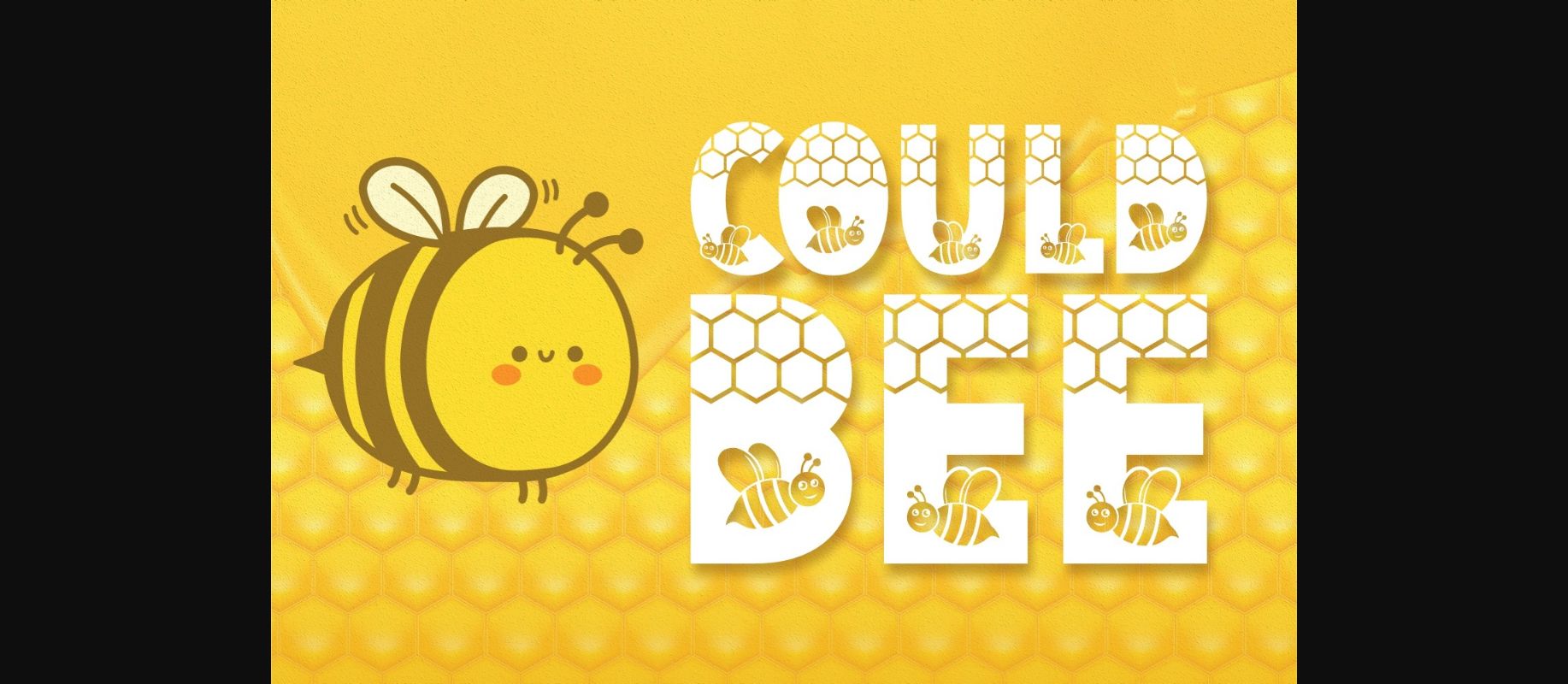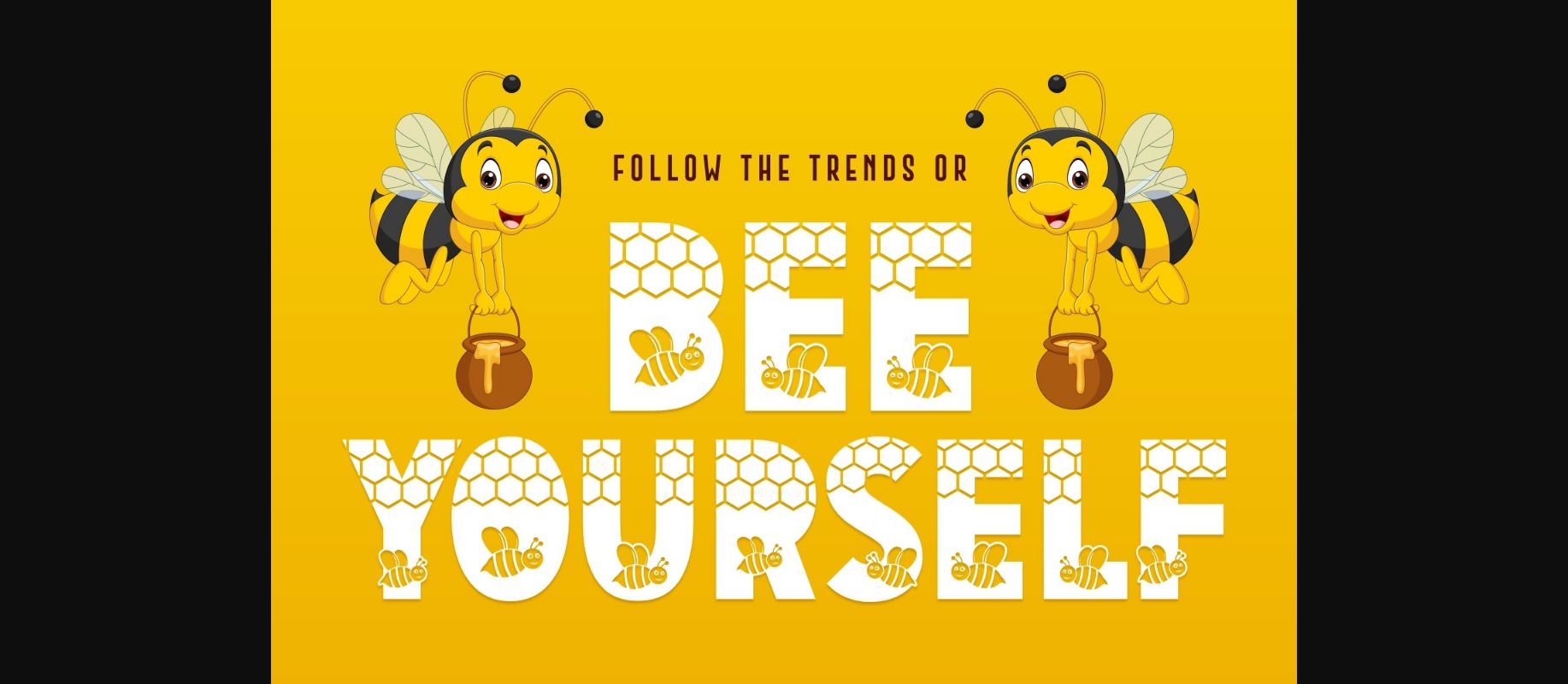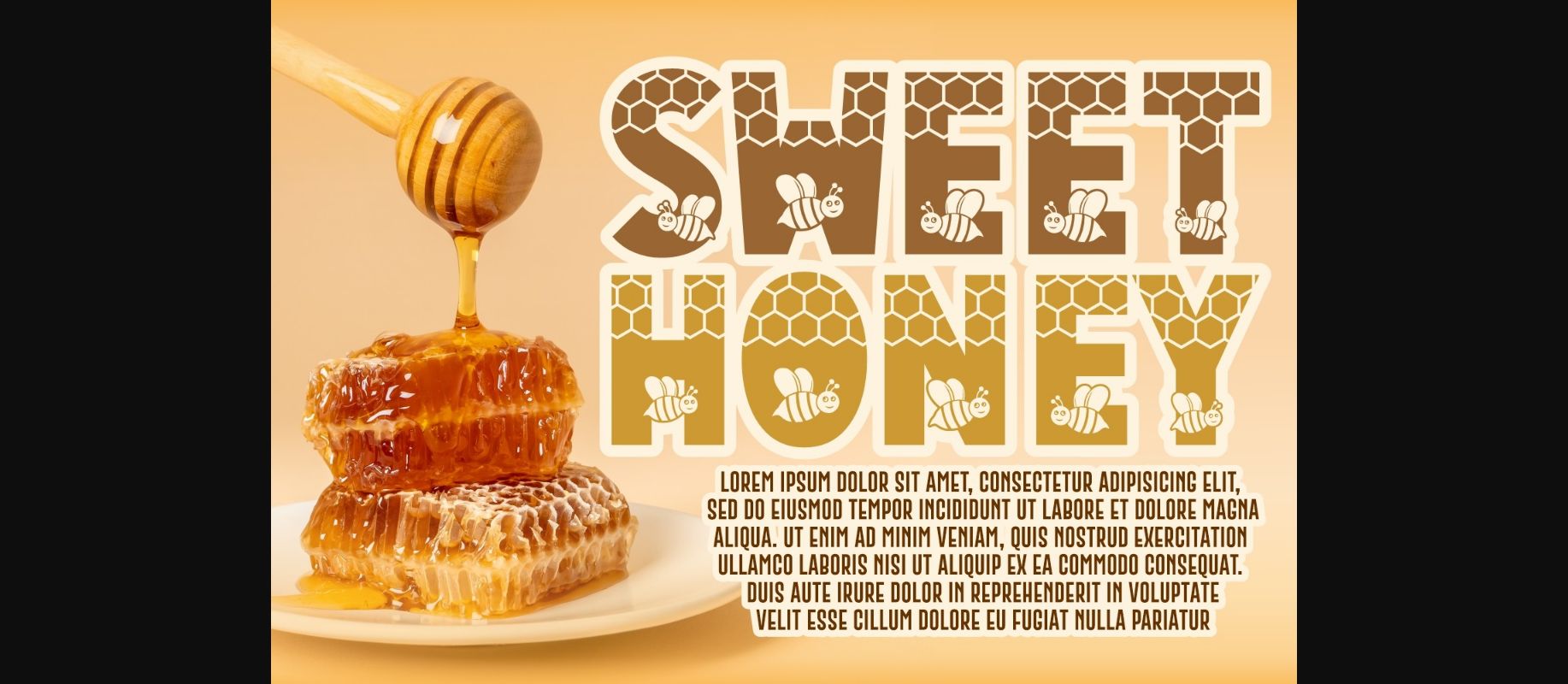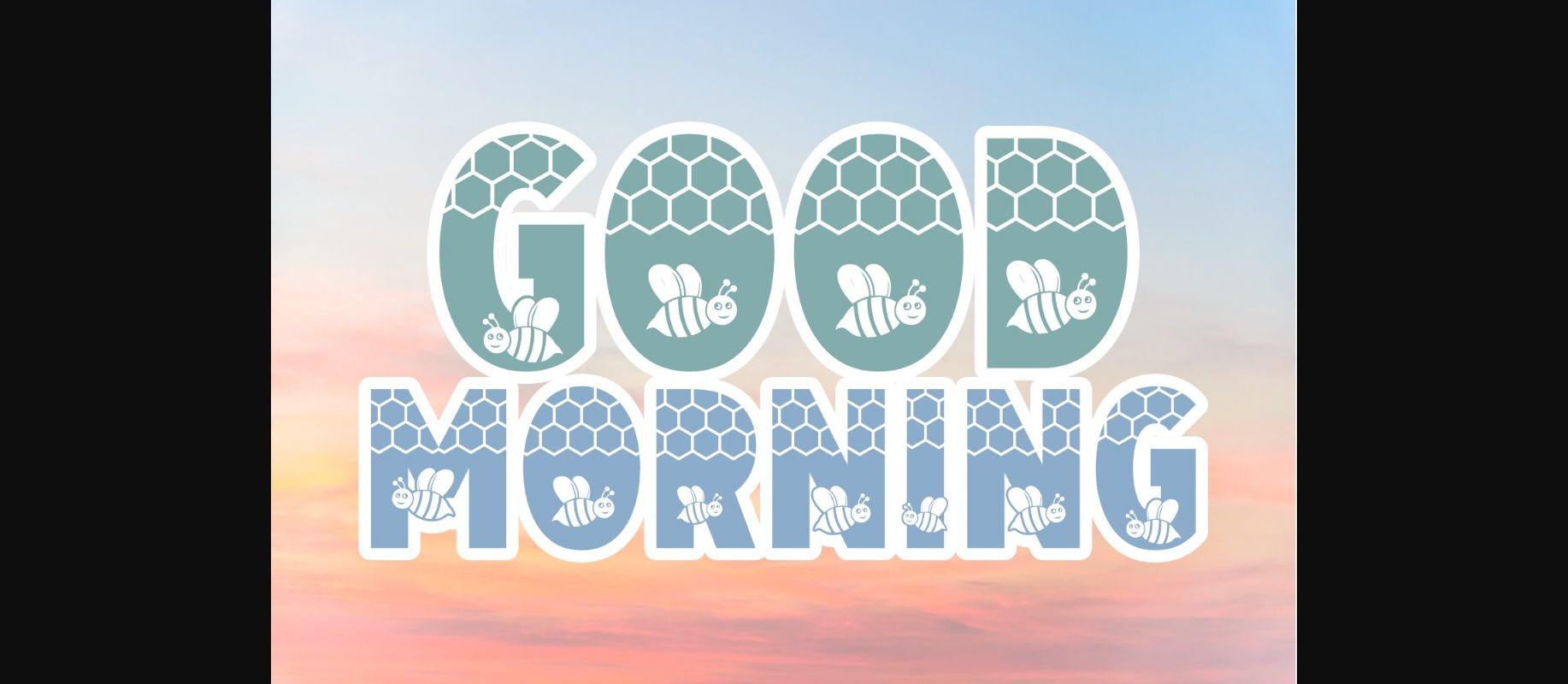
Could Bee Font
About Could Bee Font
Could Bee is a sweet and original decorative font. It is perfect for any branding project such as logos, t-shirt printing, creative products, and more.